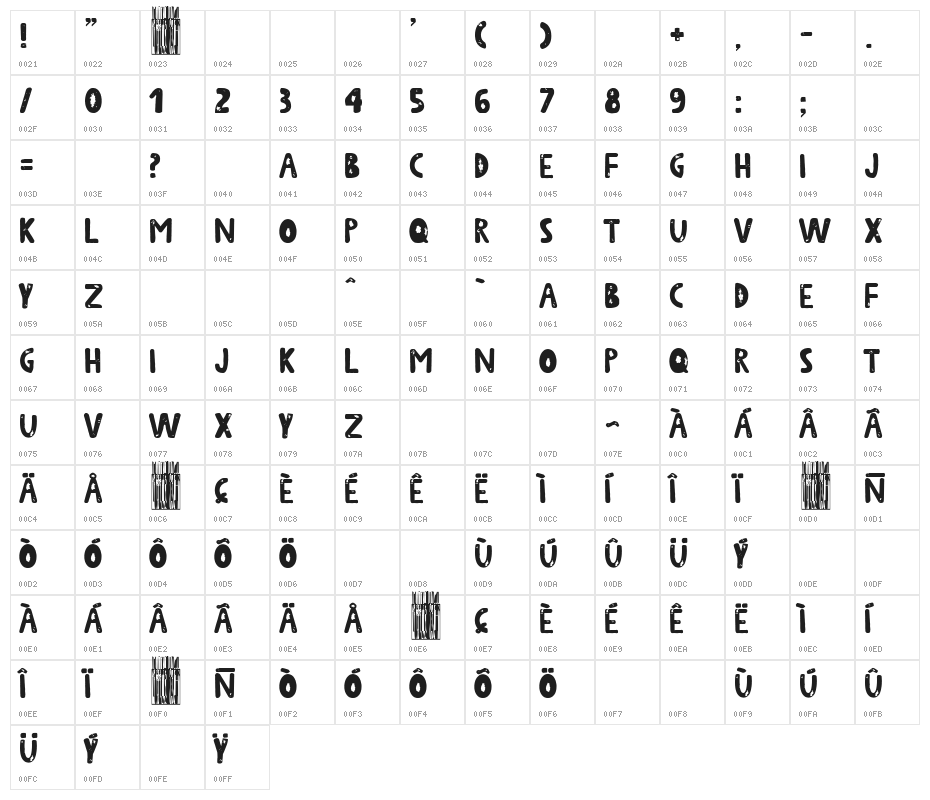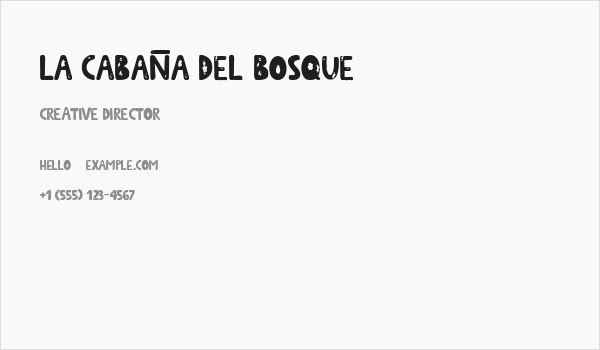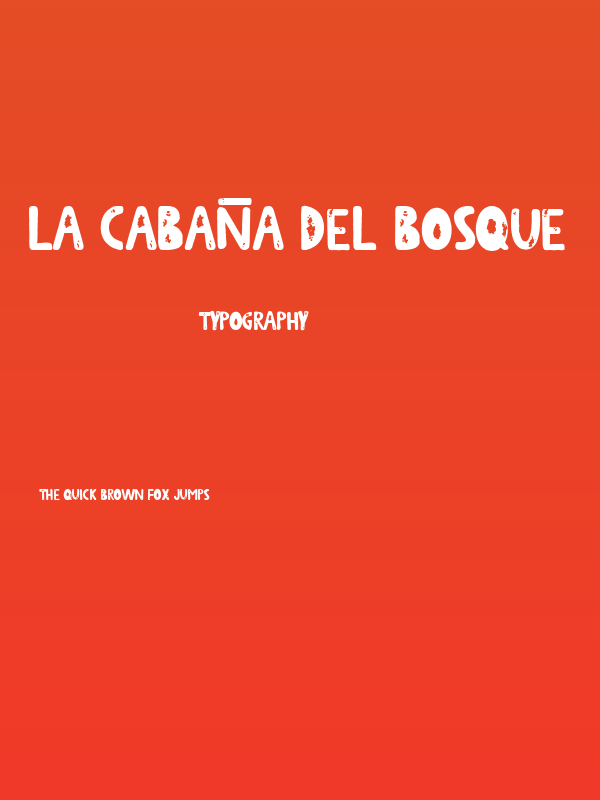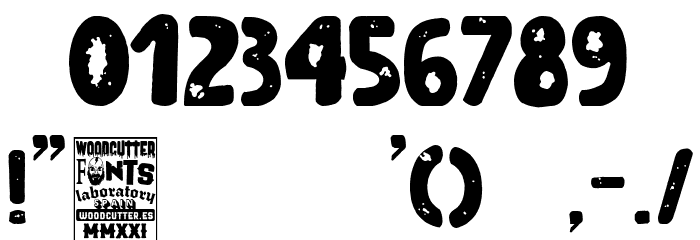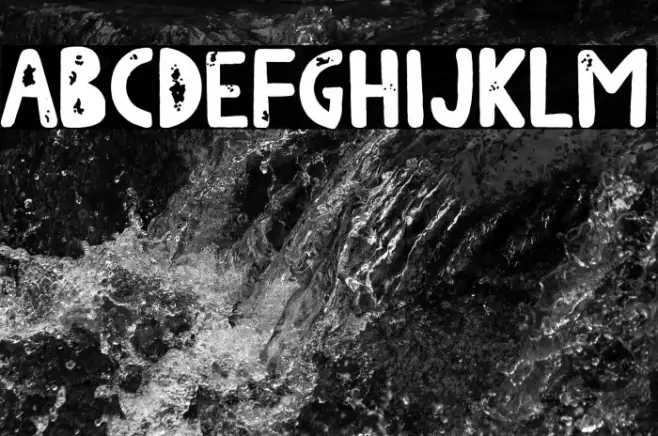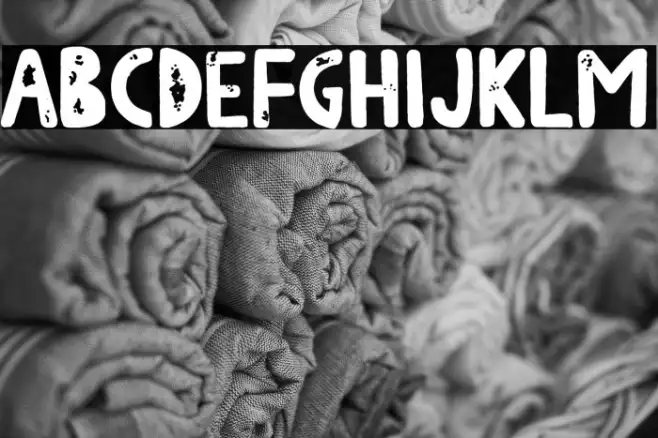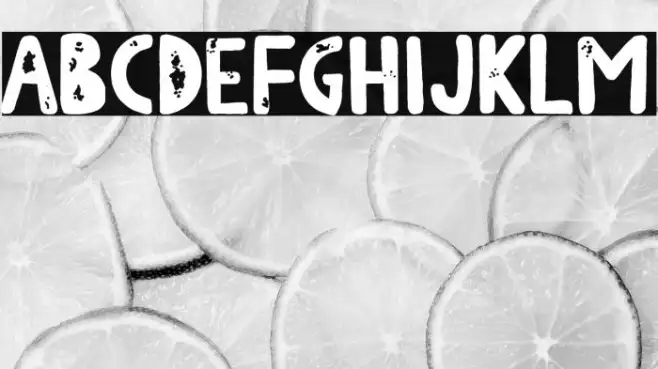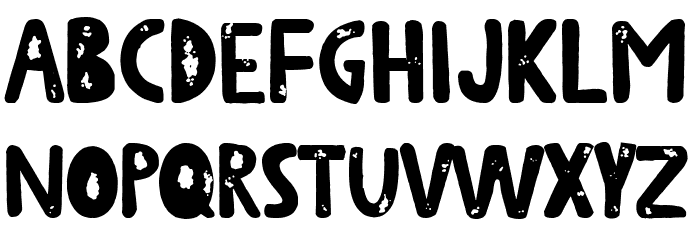
La Cabaña del Bosque Font
La Cabaña del Bosque Description
This font features a bold, distressed style with a hand-crafted appearance. The characters are slightly irregular, giving them a rustic and organic feel. The texture within each letter adds a worn, vintage look, reminiscent of woodcut or stencil designs. The uppercase and lowercase letters maintain a consistent style, with rounded edges and a playful yet rugged aesthetic. The numbers and special characters follow the same design principles, ensuring a cohesive look across all elements.
| Overall Style | Vintage |
| Proposed Projects | Ideal for projects that require a vintage or rustic touch, such as posters, signage, branding for artisanal products, or themed event invitations. |